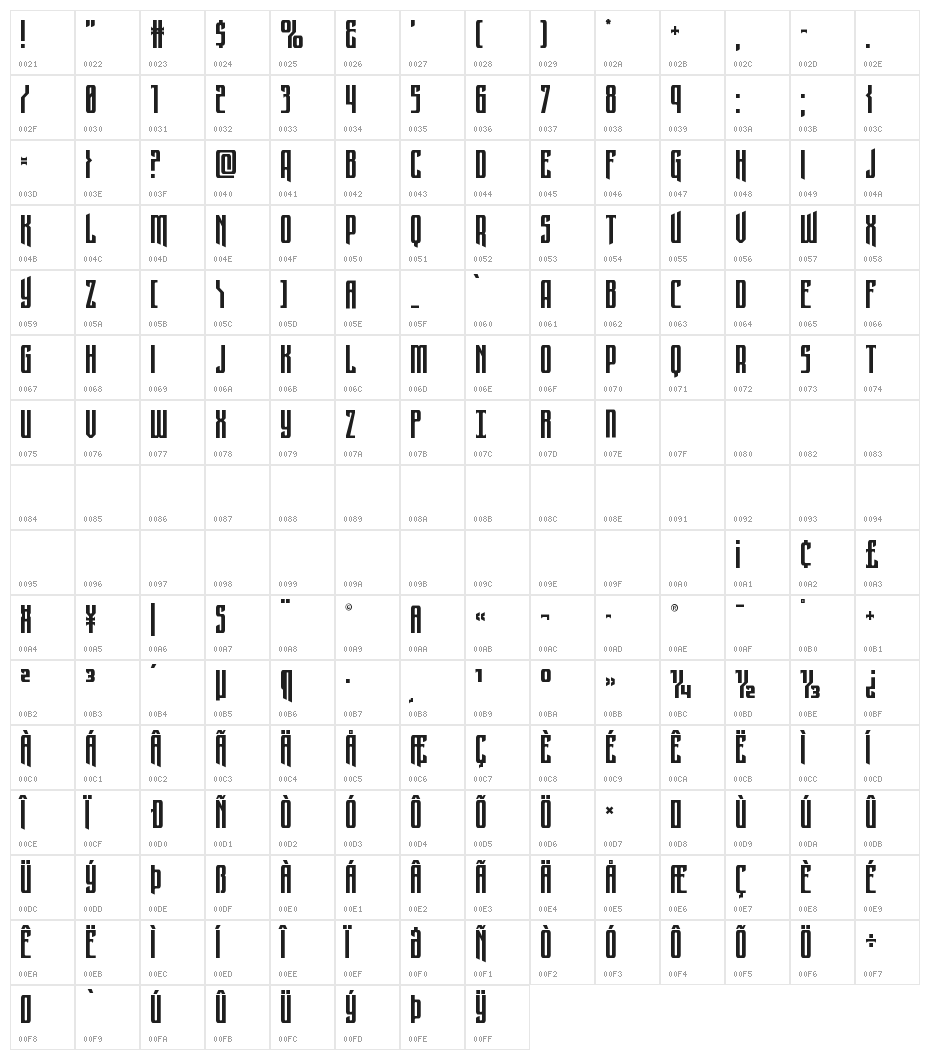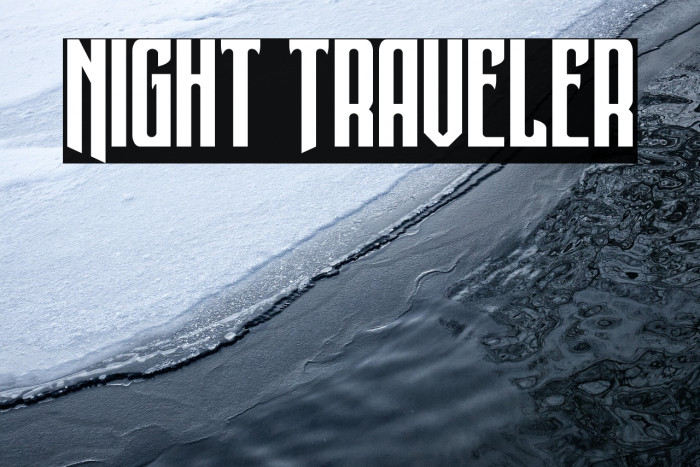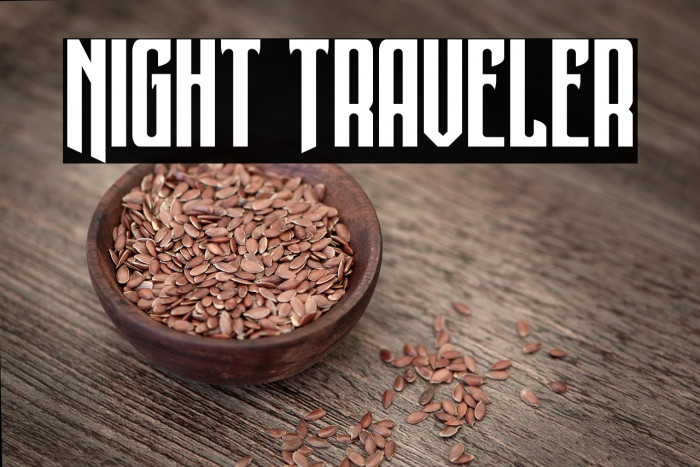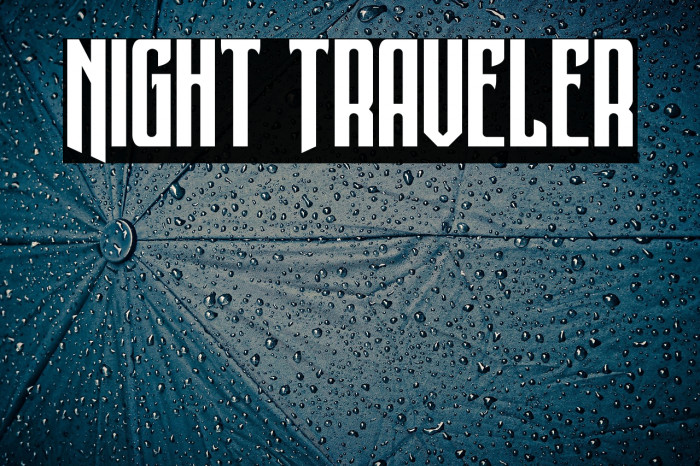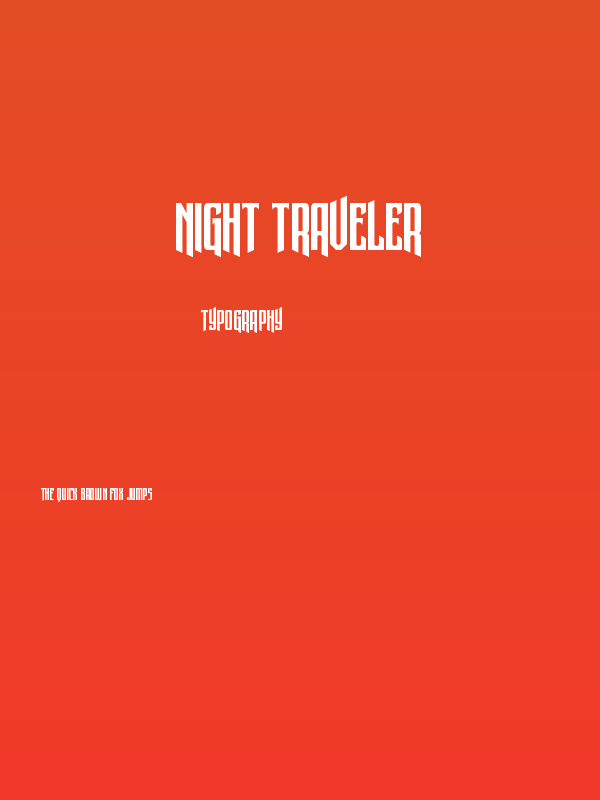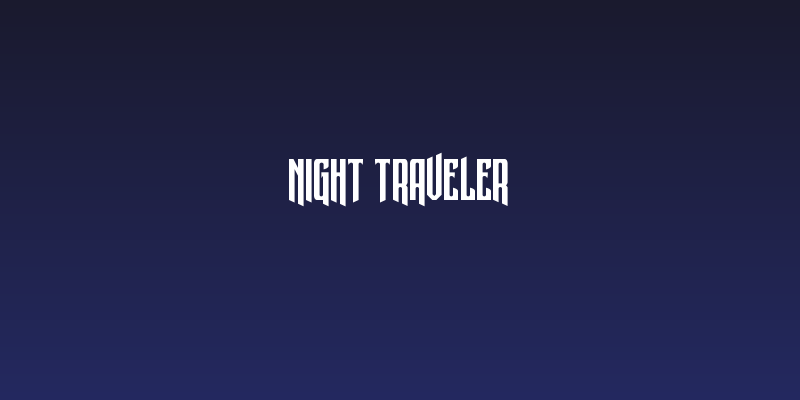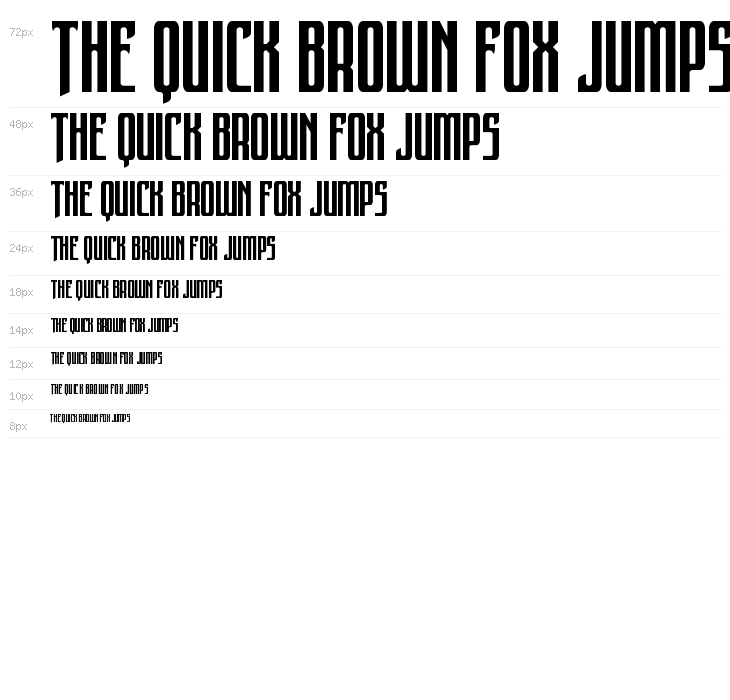
Night Traveler Font
Night Traveler Description
This font features a bold and striking design with tall, narrow letterforms that convey a sense of strength and modernity. The uppercase letters are particularly elongated, with sharp angles and clean lines that give them a futuristic appearance. The lowercase letters maintain the same narrow structure, ensuring consistency across the typeface. Numbers are similarly designed, with a uniform height that aligns with the uppercase letters. Special characters are included, matching the overall aesthetic with their angular and geometric shapes. The font's high contrast between thick and thin strokes adds to its dynamic and impactful look.